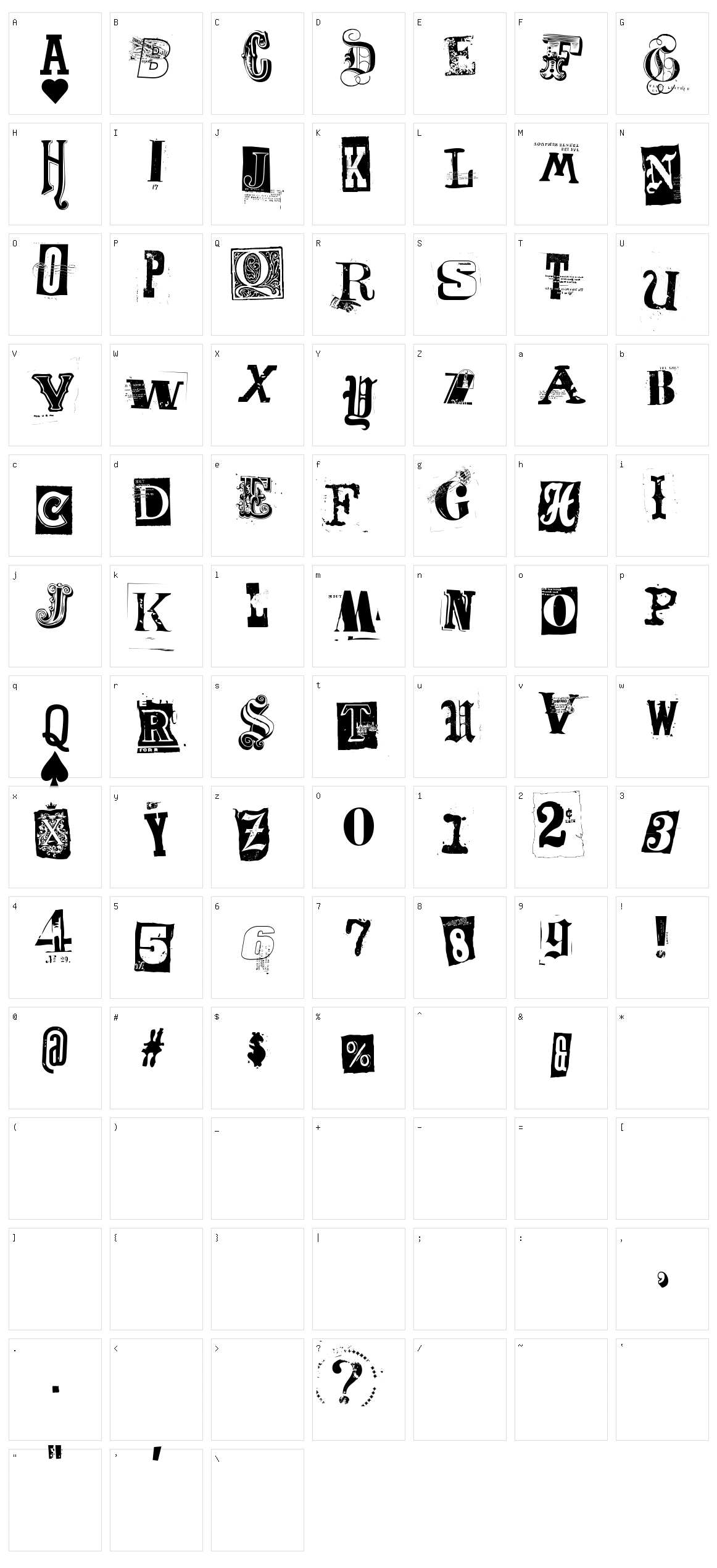
Come one! Come all! Enter at your own risk! Freakshow is a whimsical kaleidoscope of lettering whose likeness is sure to SHOCK the entire family. This unique display font will have you think old newspapers were shredded by a lawnmower and used for a ransom note. Inspiration was years
in the making with some individuals letters and graphics emulated from ads and publications long ago. Different styles such as script, eroded, medieval, and vintage collide with modern looking characters in a haphazardly fashion that will spill your popcorn onto the ground in awe.
Try a combination of uppercase/lowercase to avoid letter repetition and do explore the bonus alternates if your program supports OTF features. Only basic latin and punctuation are included. Other languages, diacritics, accents, and other letters can be added for a fee so email me if interested.
Make sure your next project or poster is center stage with a ticket to the Freakshow!